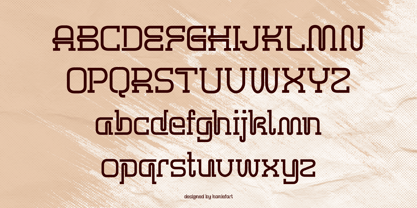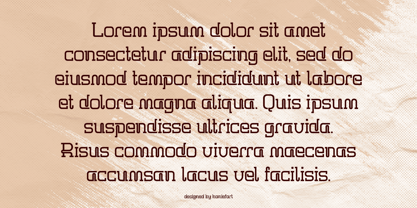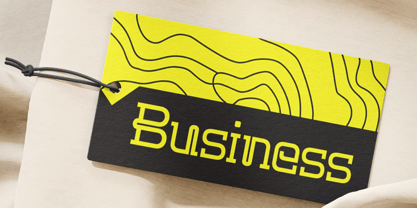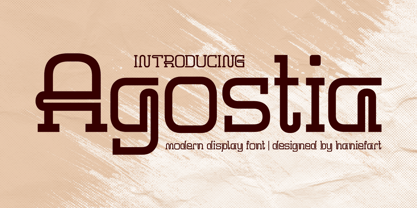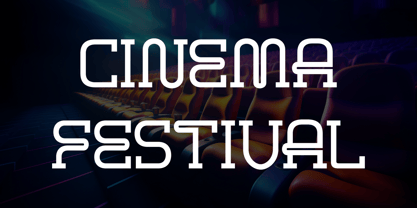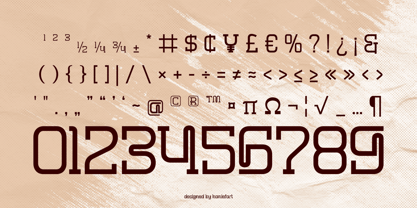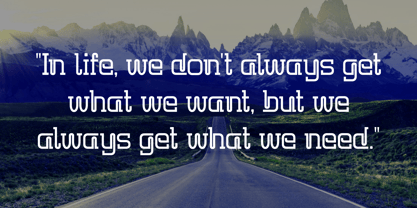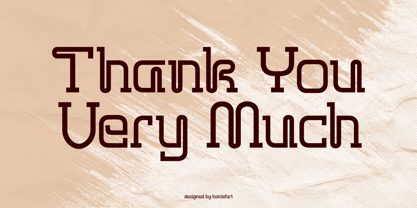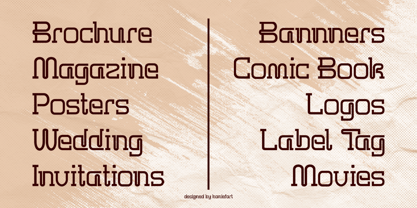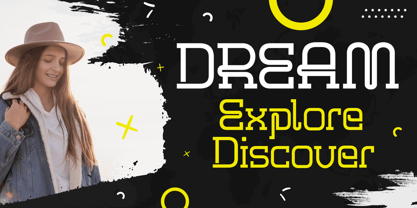
Agostia
by Haniefart
The Agostia Font Family was designed by Hanif Maulazi and published by Haniefart. Agostia contains 1 styles.
Agostia is a display font that exudes a sleek modern charm combined with welcoming warmth. With its thoughtful design, Agostia blends simplicity with uniqueness, effortlessly enhancing your projects with a subtle, trendy feel. Highly versatile, Agostia integrates seamlessly into a wide range of canvases, from brand identities and business cards to comic and magazine covers. Its trendy charisma doesn't stop there, Agostia makes an impressive impact on t-shirt designs, banners, posters, flyers, templates, and more, promising a captivating visual impact wherever it's applied. Unleash Agostia's potential and let this font bring a touch of contemporary sophistication to your next project.